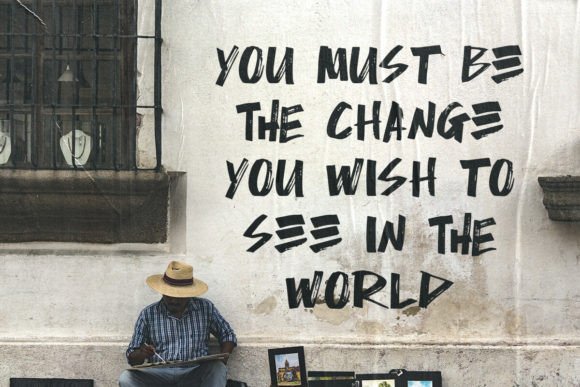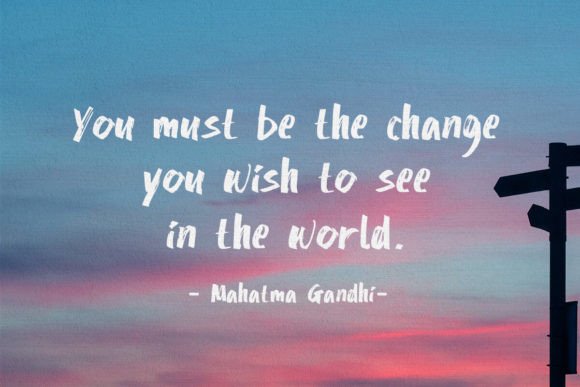
Belmanthor Font
Belmanthor is an urban street marker and brush display font, with a bold style. This font is perfect for logos, advertising, branding, urban-style posters, social media graphics, invitations, header text, album covers, packaging, product designs, merchandise and so much more.